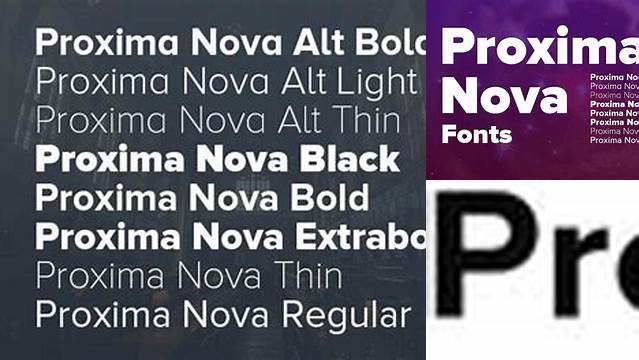
Proxima Nova Bold font is a modern sans-serif typeface that has taken the design world by storm. Its clean lines, versatility, and readability make it a favorite among designers and businesses alike. This comprehensive guide provides everything you need to know about the Proxima Nova Bold font, including a free TTF download, its features, usage, and how to effectively integrate it into your projects. So, if you're looking to elevate your designs with a sleek and professional font, keep reading! We will also see how to download it, and all the information about it, it's usage and all the things you must know.
Understanding the Popularity of Proxima Nova Bold
Proxima Nova, in its various weights and styles, including Proxima Nova Bold, has become a staple in contemporary design. Its popularity stems from several key factors. First and foremost, its legibility is exceptional. Whether used in headlines, body text, or user interfaces, Proxima Nova ensures a pleasant reading experience. This makes it an excellent choice for a wide range of applications. Furthermore, the font family's versatility is unparalleled. With its multiple weights and styles, designers can create a cohesive visual identity across various mediums, from websites and apps to print materials. The Proxima Nova Bold font stands out as a particularly impactful choice, lending emphasis and visual weight where needed. The use of Proxima Nova Bold can instantly make a design more eye-catching and authoritative. Moreover, its aesthetic appeal is undeniable. The clean, geometric forms of the font project a sense of modernity and sophistication, aligning with current design trends. Guys, that's why it's used in so many designs. The balanced design and readability make it so popular.
Features and Characteristics of Proxima Nova Bold
The Proxima Nova Bold font has several key features that make it stand out from other fonts. Let's take a closer look at what makes it so special. Firstly, the design is based on geometric shapes, and this approach gives the font a modern and clean look. This is one of the main reasons why it's used in design; it's legible and friendly. The bold weight is perfect for making headlines, subheadings, and important text pop out, as it adds impact and emphasis. The font maintains readability even in larger sizes, making it perfect for display purposes. The font is available in a wide range of weights and styles, allowing for various design applications. Another important feature is its excellent readability, regardless of the size or medium used. The font is designed to be clear and easy to read, whether in print or on a screen, contributing to a positive user experience. The Proxima Nova Bold font balances its strong presence and readability. This means it's both visually striking and very easy to read. The font's ability to work across different platforms and devices, making it a versatile choice for modern design, adds to its appeal. The spacing is carefully calibrated to optimize readability, whether it's used on a website or in printed material. That's why it is everywhere, guys!
How to Use Proxima Nova Bold Effectively in Your Designs
When using the Proxima Nova Bold font in your designs, it's super important to use it correctly to maximize its impact. Here are some best practices to make your designs shine. Firstly, consider using Proxima Nova Bold for headings, subheadings, and call-to-action elements to draw the reader's attention. The bold weight immediately attracts the eye. The font's versatility makes it well-suited for both body text and headlines. Using it consistently across your design will reinforce your brand's identity. When using Proxima Nova Bold, the key is to keep it balanced. Use it strategically to highlight important text while maintaining a good balance with other font weights to create a harmonious design. Pairing it with lighter weights from the Proxima Nova family can create visual interest. For example, you can use Proxima Nova Bold for headings and a lighter weight for body text. This hierarchy creates visual interest. To ensure readability, select a font size suitable for the context. The font looks great at a larger size, but it works well in smaller sizes, too. To maximize readability, you should also think about contrast. Ensure the font has enough contrast against the background. This is super important for both print and web designs. Make sure the colors you select complement each other. The right colors can make your design stand out and convey the message. Always ensure legibility, no matter the medium. Always test your design across different devices and screen sizes to ensure the font renders correctly and that it still looks great. Finally, think about the space. Play around with the spacing and the size; this is super important!
Alternatives to Proxima Nova Bold
If you're looking for alternative fonts similar to the Proxima Nova Bold font, there are several excellent options you can consider. These fonts can provide a similar aesthetic appeal and usability, allowing you to maintain design consistency. One popular alternative is Helvetica Neue, a classic sans-serif font known for its clarity and versatility, similar to Proxima Nova. Another option is Roboto, a modern sans-serif font often used in Google's design system. It offers excellent readability across various devices and platforms. Open Sans is a great alternative, a humanist sans-serif font that provides excellent readability. It's a popular choice for web design. Lato is another solid choice, a sans-serif font with a clean and friendly appearance. This font has become super popular over the years. When choosing an alternative, consider the project's overall design style, the desired tone, and the specific needs of the design. Also, consider the availability of different weights and styles, which allows you to maintain flexibility in your designs. Always test your chosen font with your design to ensure it meets your needs. Consider the legal and licensing aspects of each alternative. Remember, picking an alternative is all about finding a font that fits your needs and design style, providing the best balance between aesthetics and functionality.